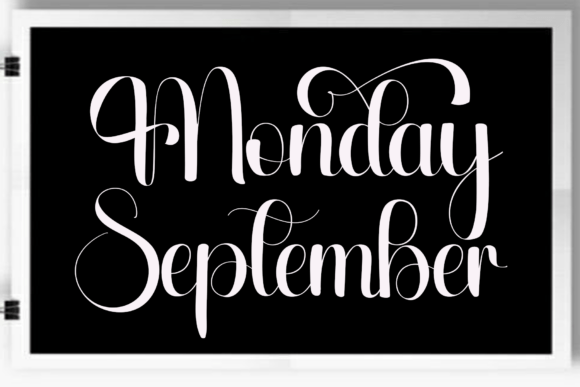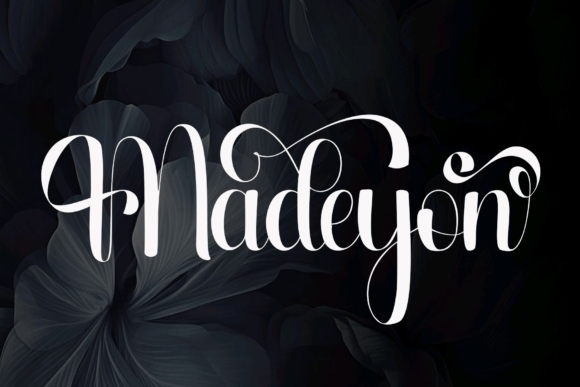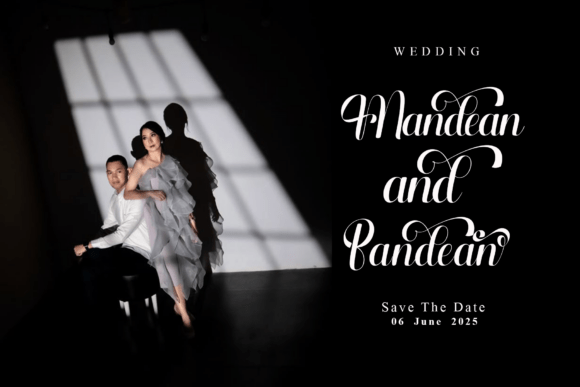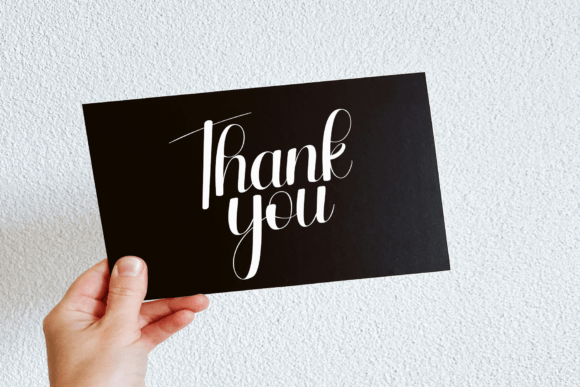
First Impressions: A Love Affair with Buffen Madesson
Buffen Madesson is a true showstopper, with its dramatic swashes and elegant curves evoking the grandeur of classic calligraphy. This typeface is ideal for upscale branding, food packaging, wedding invitations, or any project that needs a touch of refined charm. Its graceful flow and high contrast strokes give it a timeless, sophisticated feel that’s hard to resist.
- ✨ Elegant, cursive script with dramatic swashes and flourishes
- ✅ High contrast strokes for a sophisticated, refined look
- 💫 Perfect for upscale branding, wedding invitations, and food packaging
- 🎨 Highly versatile, suitable for a wide range of creative projects
- 🤔 May not be the best choice for body text or long-form content due to its script nature
- ⚠️ Some swashes and flourishes may not work well at smaller font sizes
The Story Behind Buffen Madesson: Designer Inspiration
Buffen Madesson was inspired by the art of classic calligraphy, with its elegant curves and dramatic swashes. The font’s designer aimed to create a typeface that would evoke the grandeur and sophistication of traditional calligraphy, while still being versatile and modern. The result is a font that’s both timeless and contemporary, perfect for a wide range of creative projects.
Q: What type of projects is Buffen Madesson best suited for?
A: Buffen Madesson is ideal for upscale branding, food packaging, wedding invitations, and any project that requires a touch of refined charm.
Q: Can I use Buffen Madesson for body text or long-form content?
A: While Buffen Madesson is a beautiful font, it may not be the best choice for body text or long-form content due to its script nature. It’s better suited for headlines, titles, and short-form text.
Q: Does Buffen Madesson support OpenType features?
A: Yes, Buffen Madesson supports OpenType features, including stylistic alternates, swashes, and glyphs. You can access these features in compatible design software, such as Adobe Creative Cloud apps.
Q: Is Buffen Madesson a versatile font?
A: Yes, Buffen Madesson is a highly versatile font, suitable for a wide range of creative projects, from branding and packaging to editorial design and digital media.